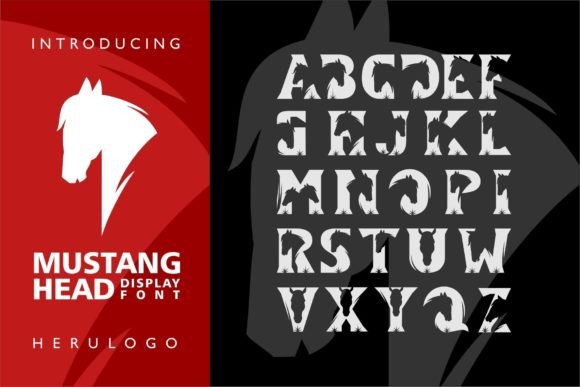
Introducing Mustang Head Font, the key to unlocking a world of creative possibilities. This playful and modern display font, meticulously crafted by the visionary Herulogo, emerges as the ultimate choice for those seeking a font that embodies uniqueness and aesthetic charm. Mustang Head's versatility captivates the imagination, effortlessly transcending the boundaries of traditional media and the digital realm. Whether you're a seasoned crafter or a graphic artist embarking on a new project, Mustang Head beckons you to explore its boundless potential.
With its effortless compatibility with design tools like Photoshop and Affinity, Mustang Head seamlessly integrates into your creative workflow, enhancing your productivity and unleashing your artistic prowess. Dive into a world of inspiration as you witnessMustang Head transforming your designs into masterpieces. From captivating wall posters that ignite the imagination to distinctive brand logos that leave an indelible mark, Mustang Head empowers you to create visual narratives that captivate and inspire.
Immerse yourself in the versatility of Mustang Head, a font that thrives in both print and digital domains. Its playful and energetic nature makes it an ideal choice for creating eye-catching designs that resonate with a wide audience. Unleash your creativity and watch as Mustang Head breathes life into your posters, flyers, social media graphics, and website designs. Step into the spotlight with Mustang Head, the font that elevates your designs and propels them to new heights of visual excellence.
Join the ranks of creative visionaries who have embraced Mustang Head as their font of choice. Let your imagination run wild as you explore the endless possibilities that await you. Mustang Head awaits you, ready to ignite your passion and transform your creative dreams into stunning realities.